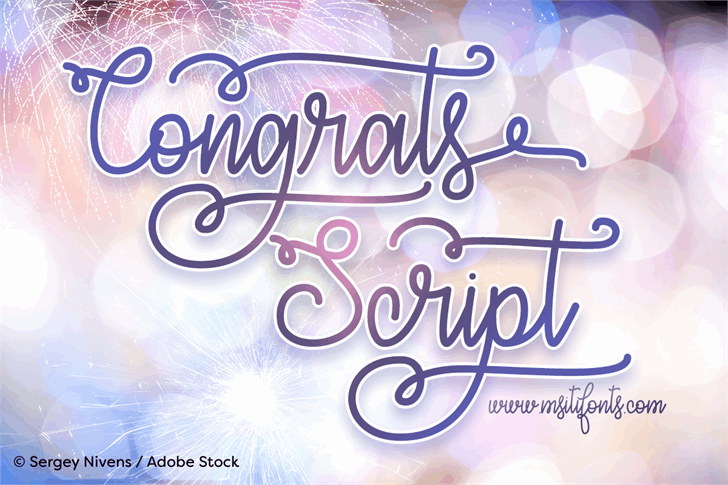
Free Congrats Script Font
Featuring the mouth-watering free congrats script font. This typeface file was found from the amazing source called Font Space. Amaze your fellow designers and create stunning designs with this beautiful font.